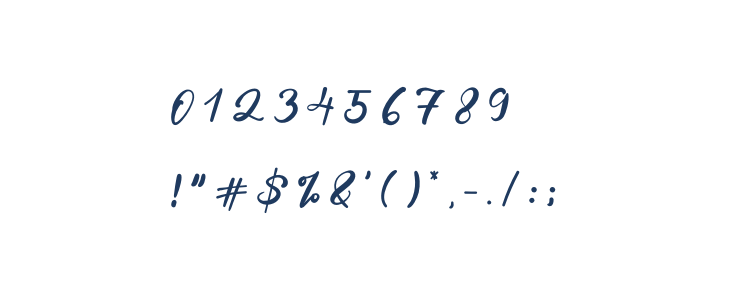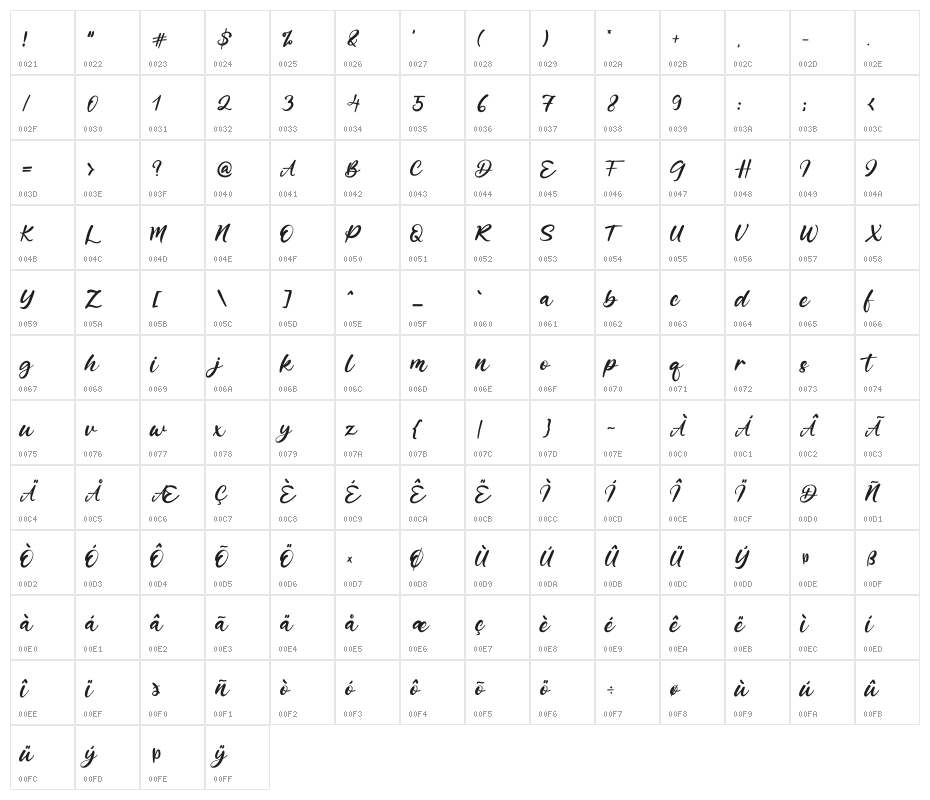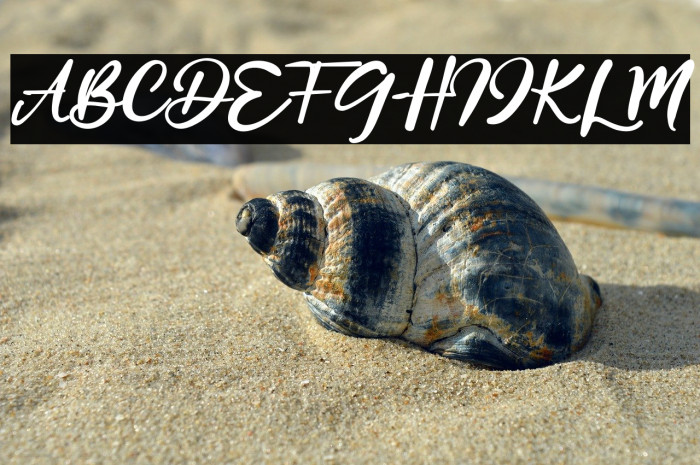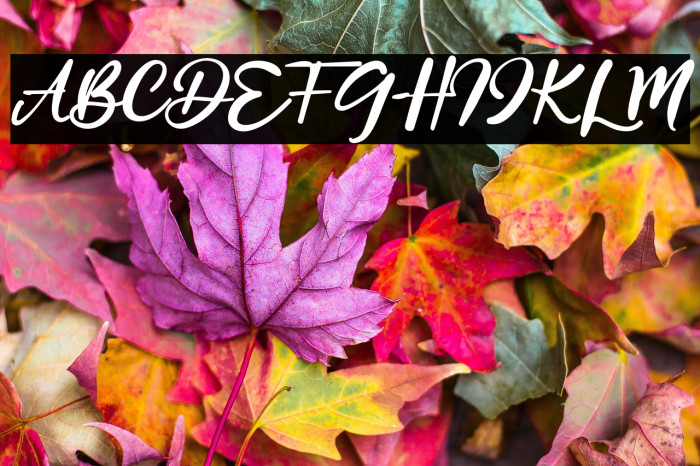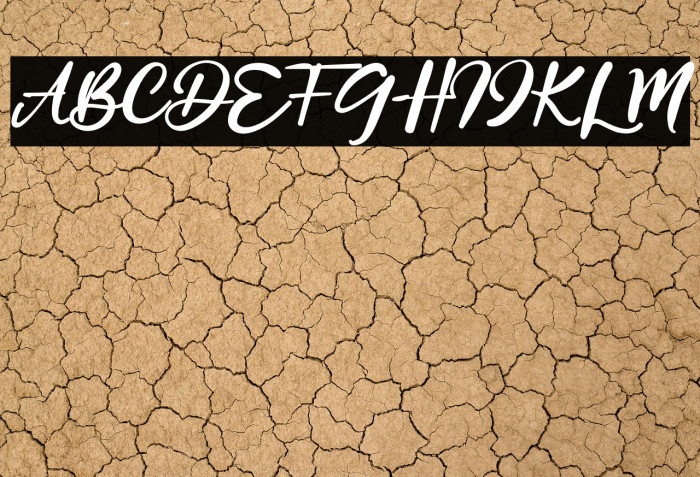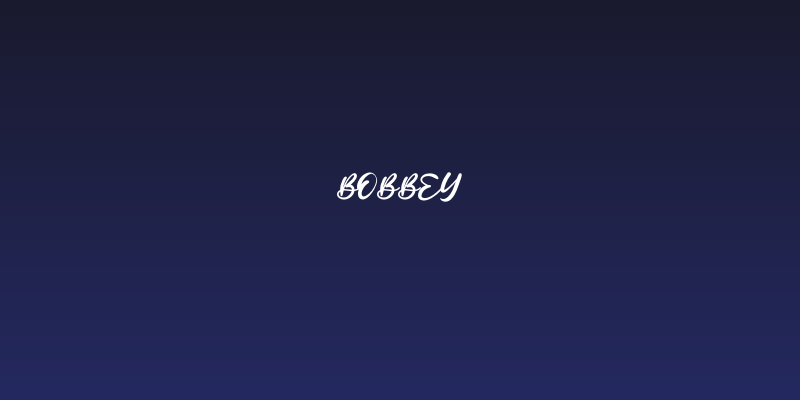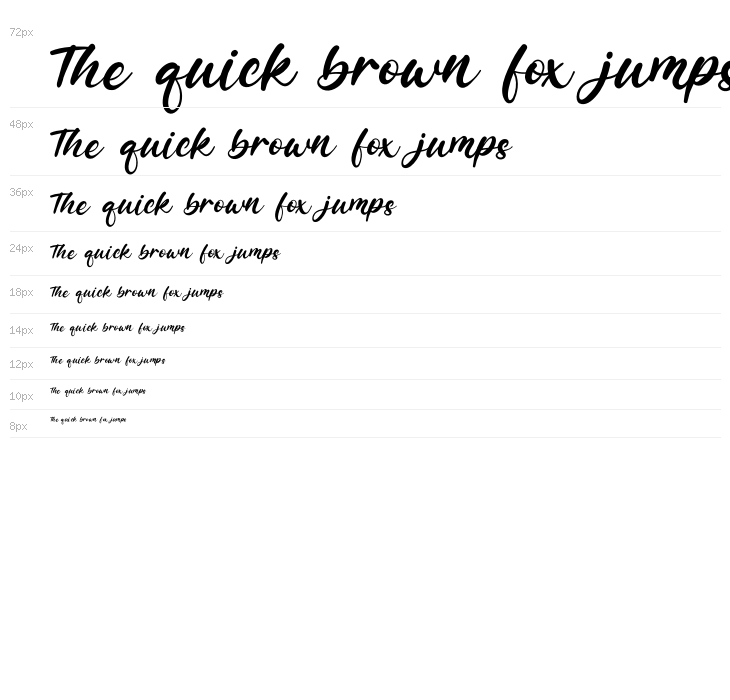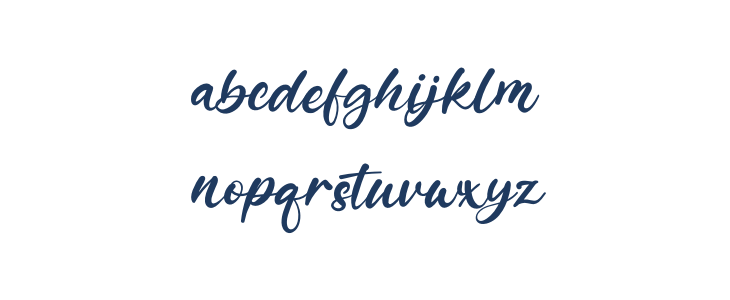
Bobbey Font
Bobbey Description
This elegant script font features fluid, connected strokes that mimic the natural flow of handwriting. The uppercase letters are slightly more ornate, with sweeping curves and loops that add a touch of sophistication. The lowercase letters maintain a consistent style, offering a harmonious blend of readability and decorative flair. Numbers and special characters are crafted with the same attention to detail, ensuring a cohesive look across all text elements. The font's overall appearance is both stylish and approachable, making it suitable for a variety of design projects.
| Overall Style | Elegant |
| Use Case | Logos, Invitations, Decorative text |
| Proposed Projects | Ideal for wedding invitations, greeting cards, branding, and elegant packaging designs. |